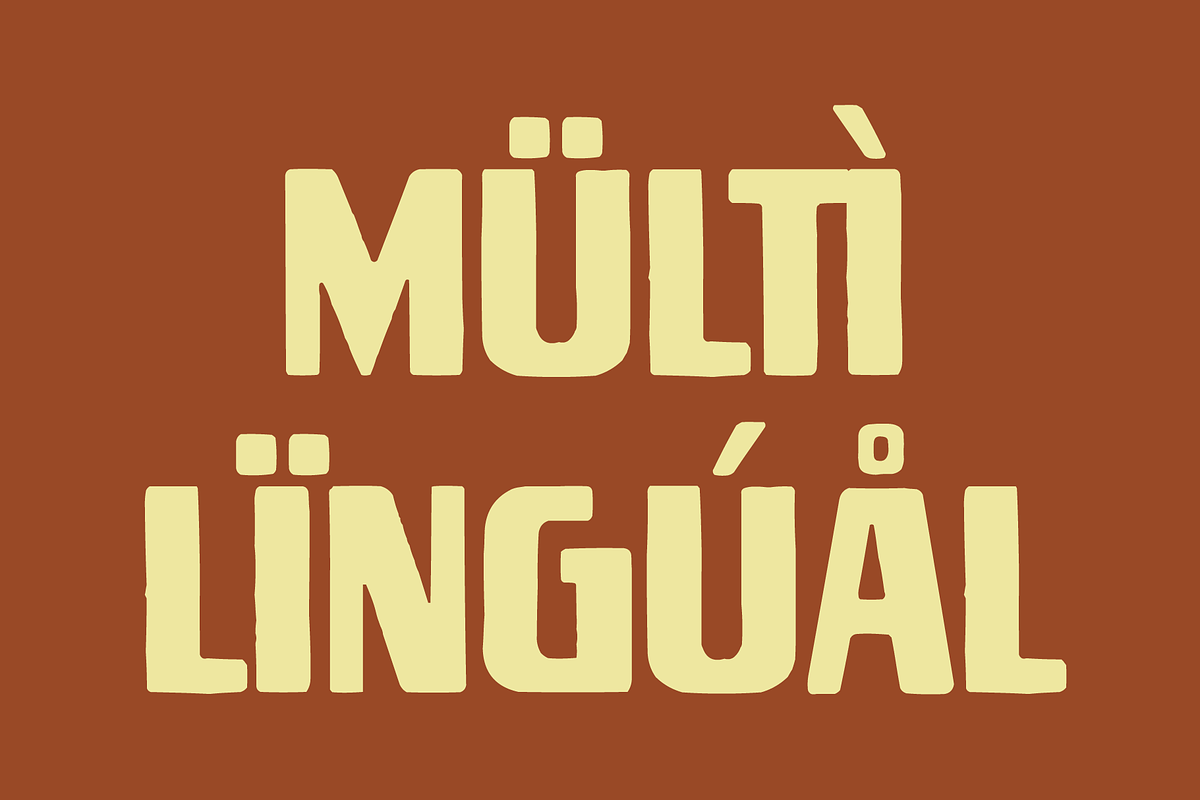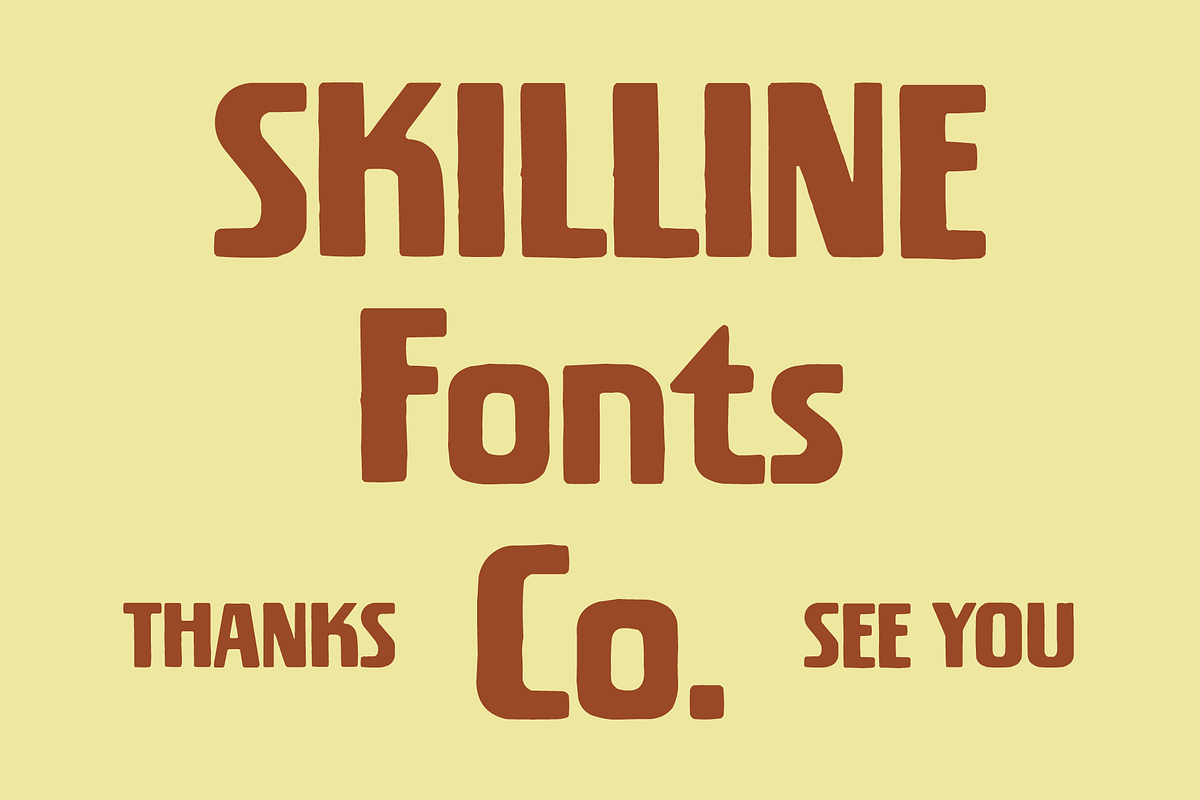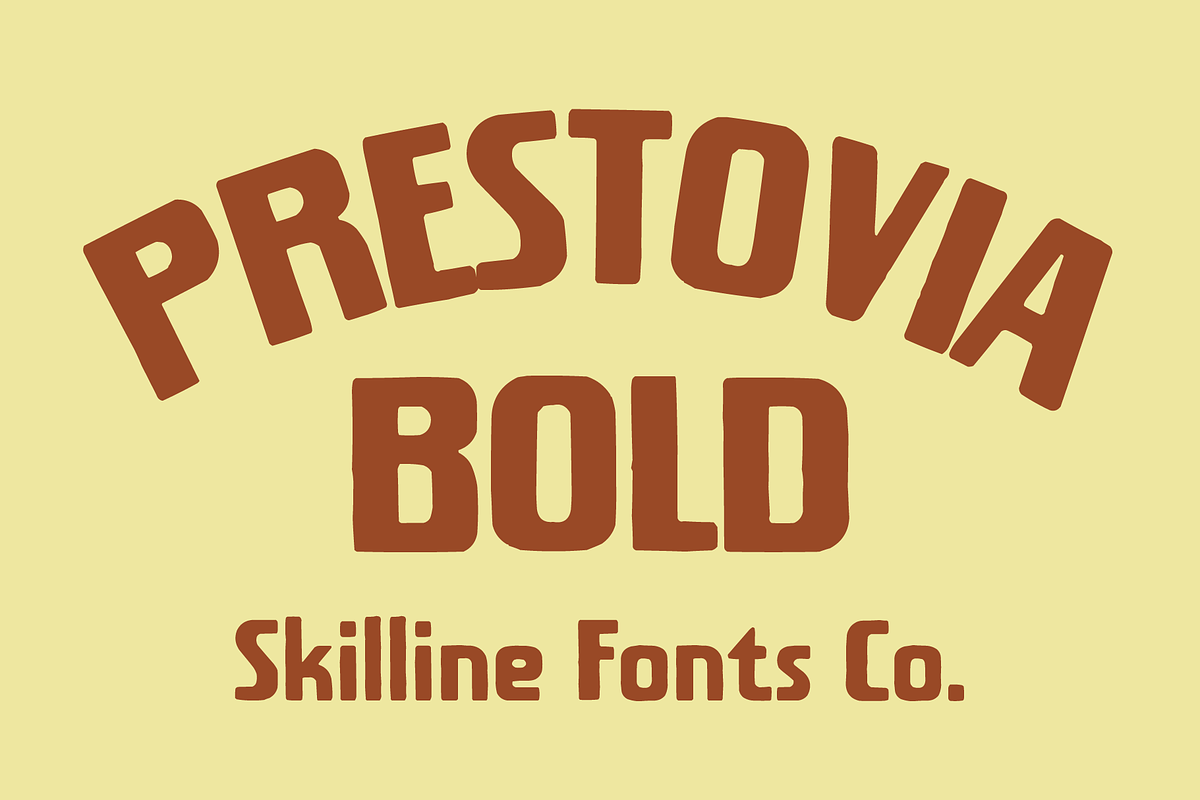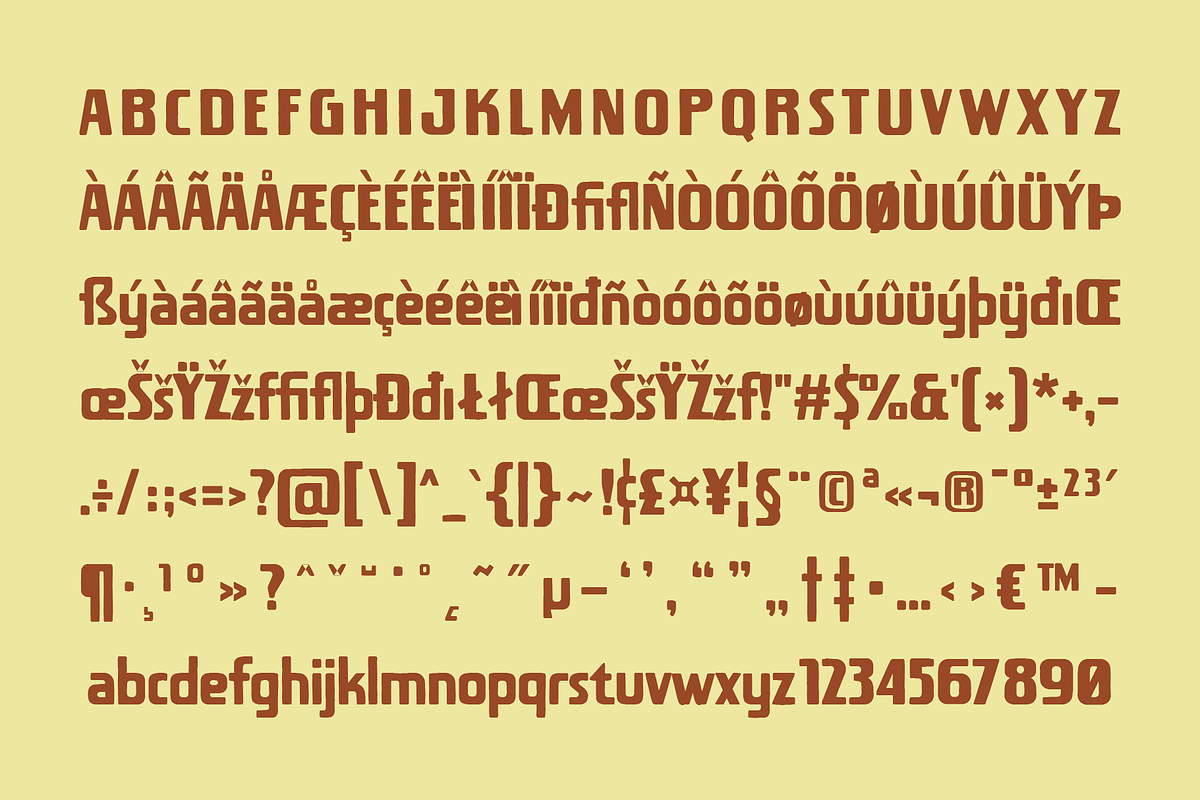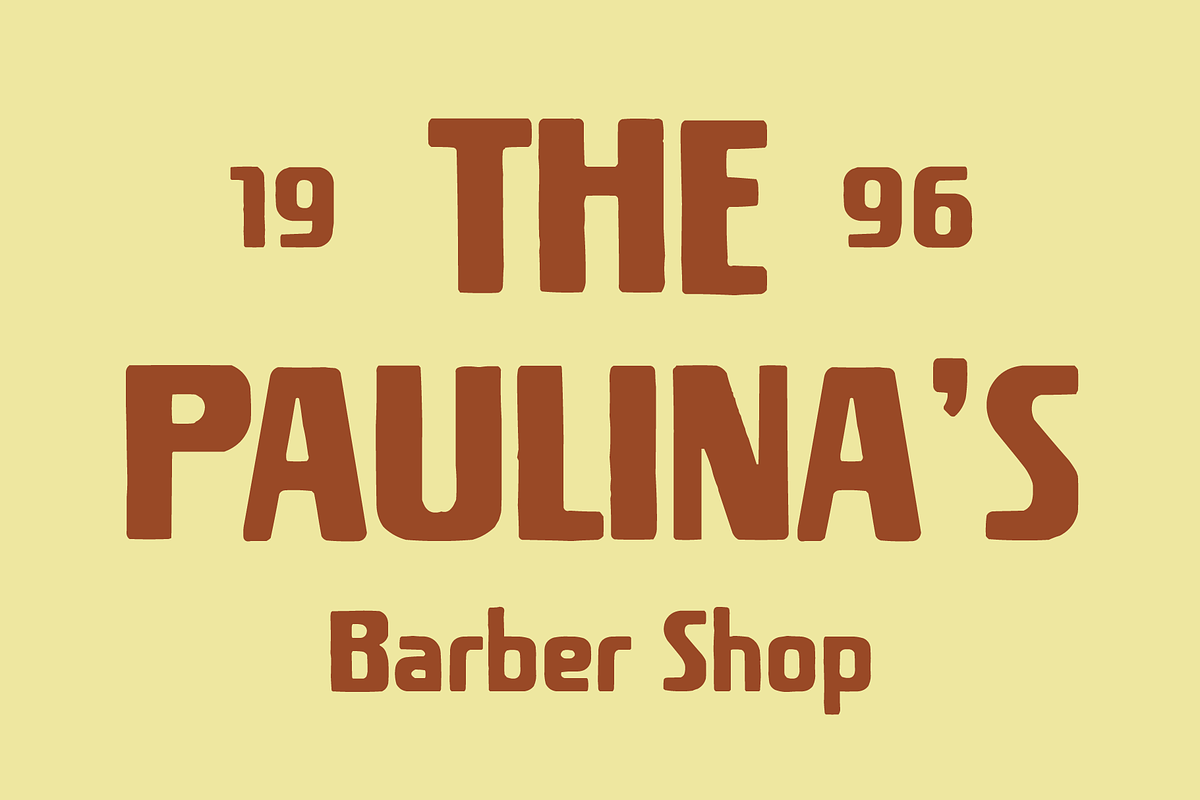
SFC Prestovia
**Prestovia **is a handcrafted vintage display typeface inspired by classic storefront signs, old advertising, and traditional woodblock lettering. Bold condensed proportions, softly rounded corners, and subtly textured edges create a strong handcrafted appearance with a warm retro character and balanced visual rhythm.
Designed with sturdy construction and carefully refined details, **Prestovia **combines expressive vintage charm with clear readability. It includes multilingual support, extended Latin characters, complete numerals, and punctuation, delivering an authentic display style with timeless craftsmanship.
* Handcrafted Vintage Display
* Textured Rough Edges
* Bold Retro
* Numerals & Punctuation
* Multi Language